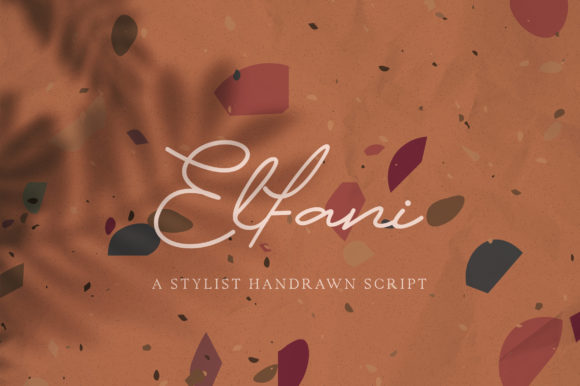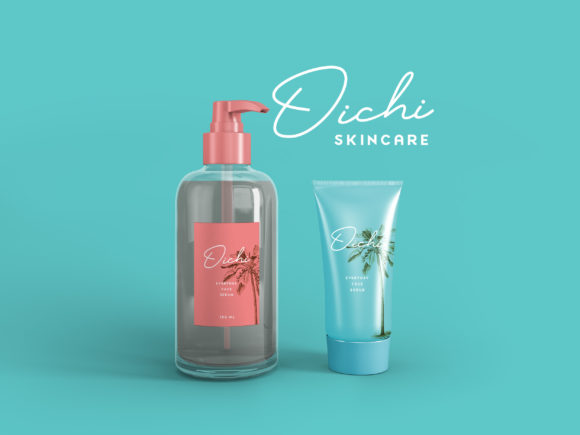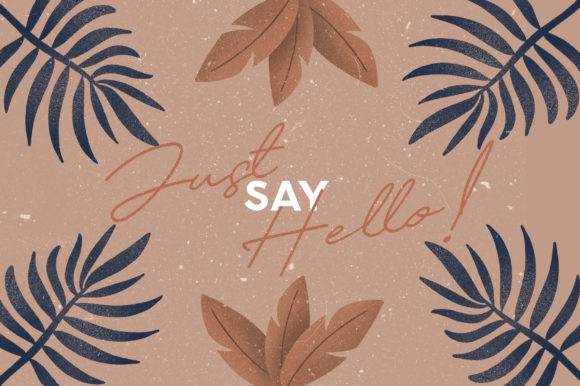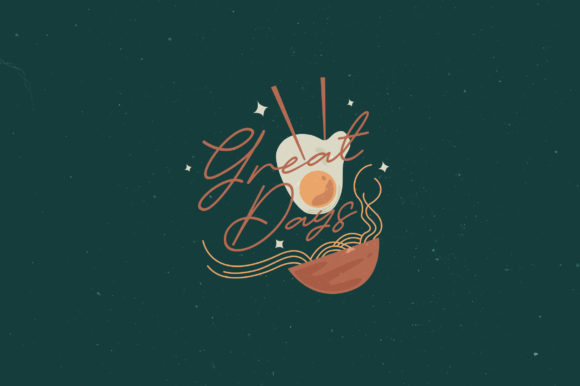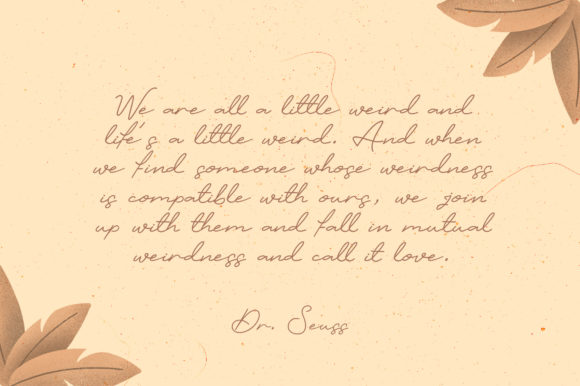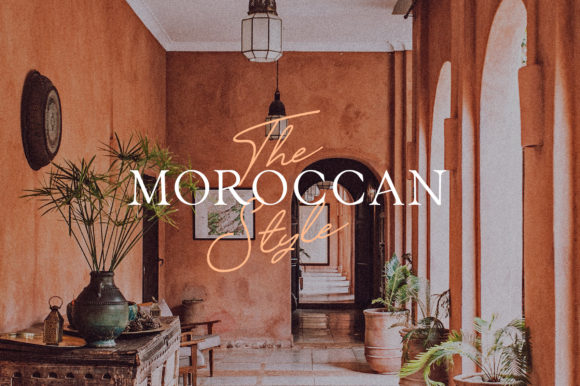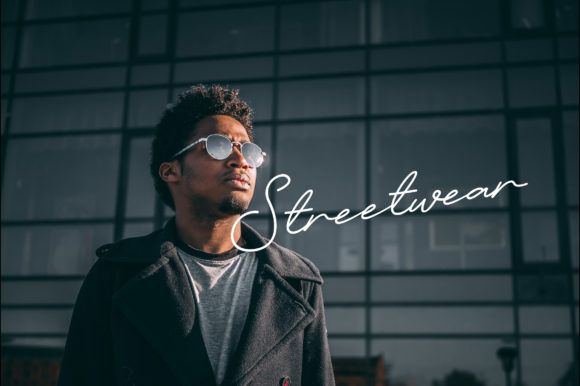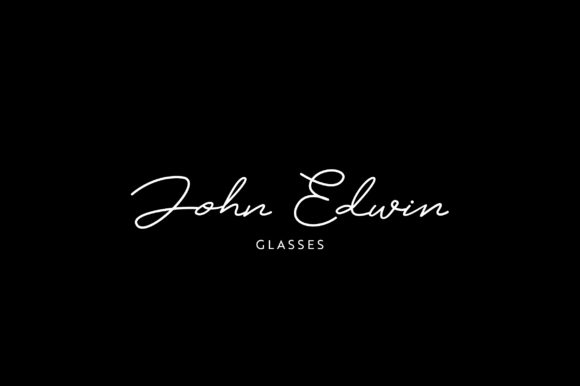
Elfani Font
About Elfani Font
Elfani is a beautiful script font. It has an elegant look that makes it perfect for creating cute stationery, unique wedding designs and much more!